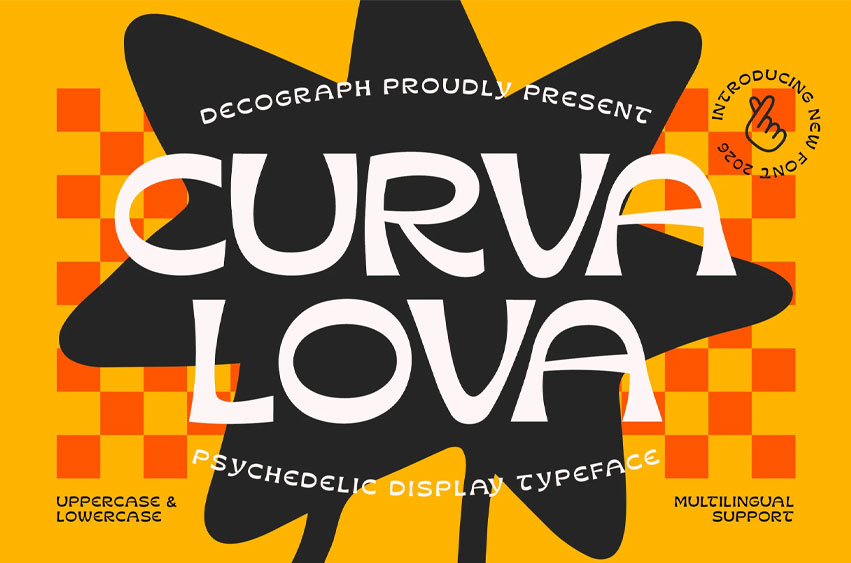
Curva Lova Font
Curva Lova Font Psychedelic Retro Display Font is a bold typeface inspired by groovy psychedelic lettering and vintage pop design. Its smooth curves, playful shapes, and expressive structure create a fun and energetic visual rhythm. The rounded forms and dynamic style give the font a nostalgic retro feel while remaining fresh and modern.
Designed to stand out in bold creative layouts, this font works perfectly for eye-catching headlines and expressive branding. Whether used for posters, logos, packaging, or social media graphics, Curva Lova brings a vibrant retro personality and strong visual impact.
Style: Psychedelic Display Groovy Retro Curvy Decorative
Font Features: Uppercase Letters Lowercase Letters Numbers And Punctuation Multilingual Support Smooth Curved Letterforms